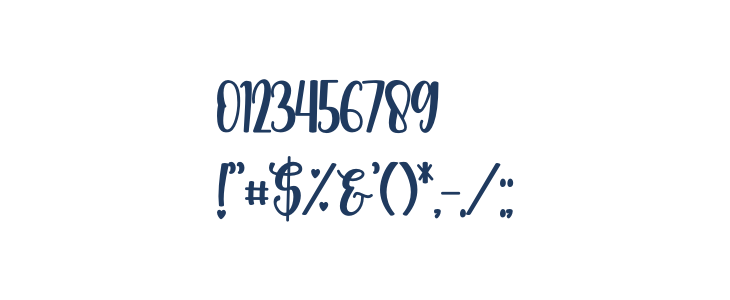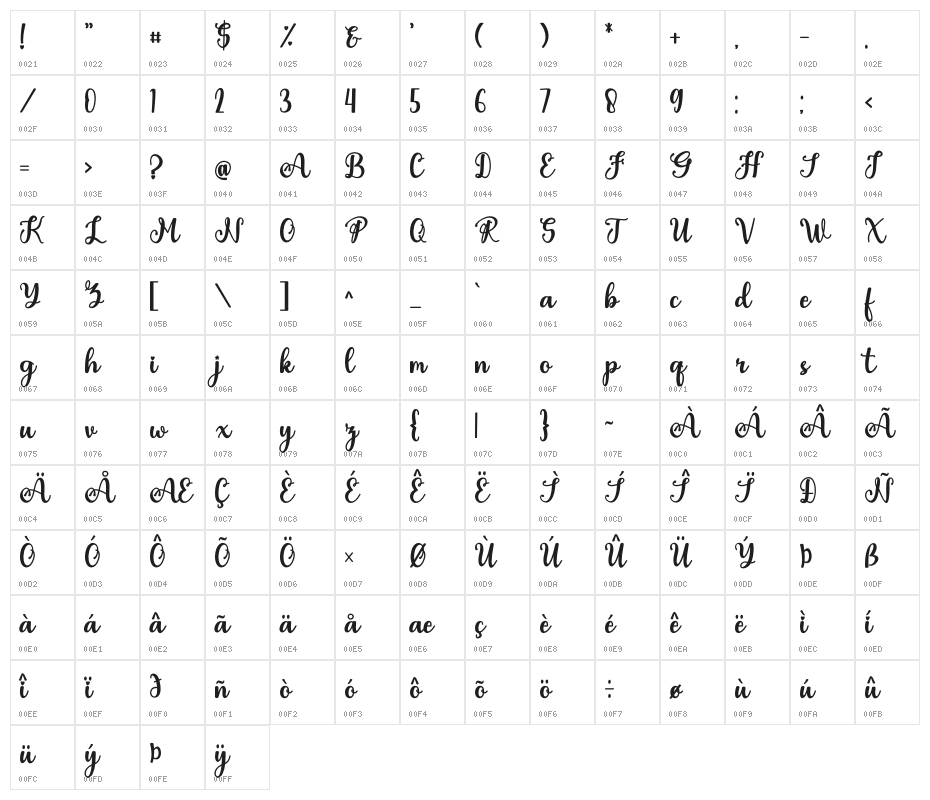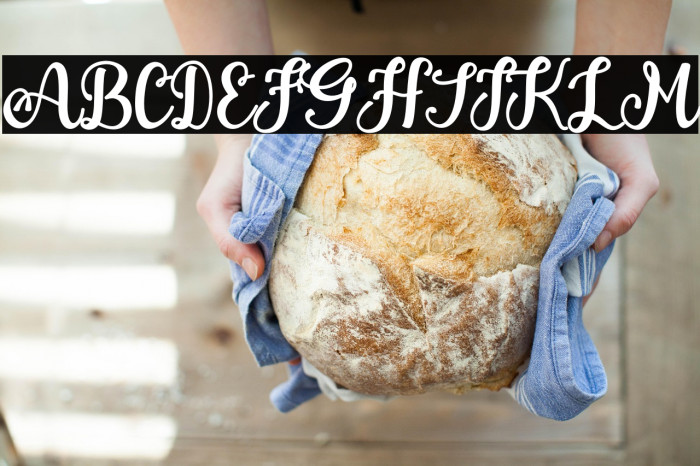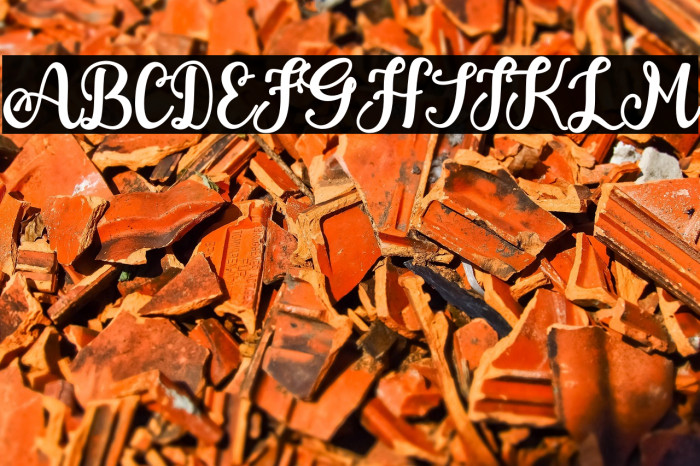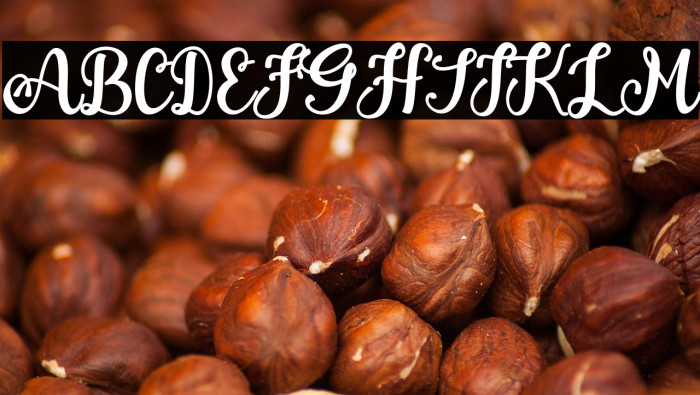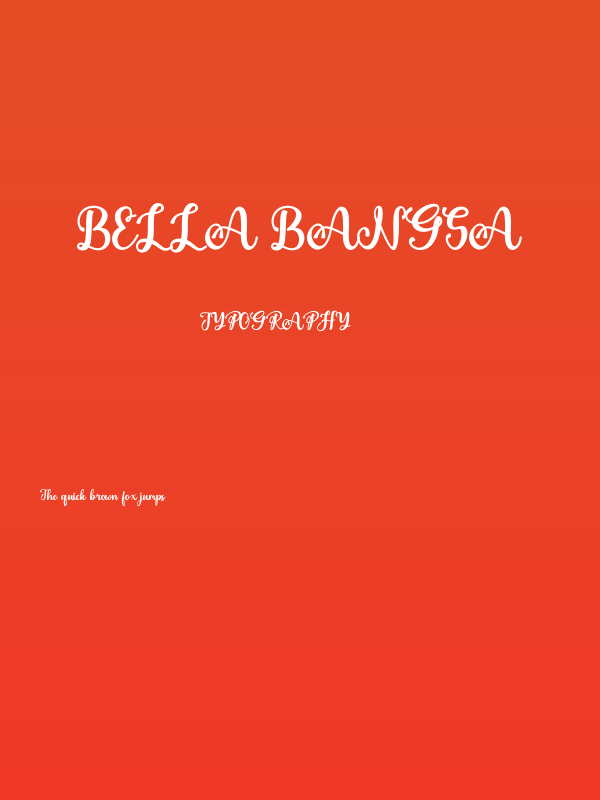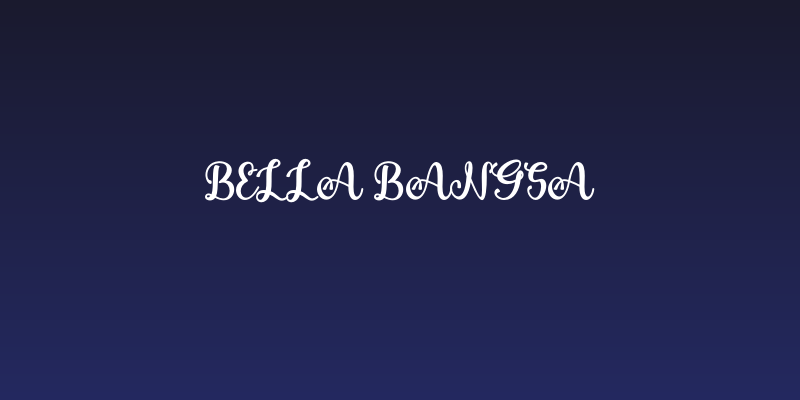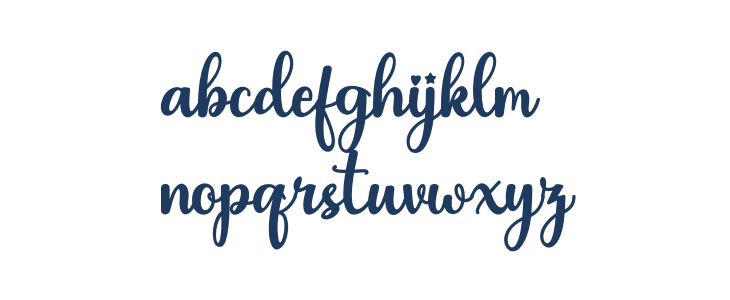
Bella Bangsa Font
Bella Bangsa Description
This font features a playful and elegant script style with a flowing, cursive design. The uppercase letters are characterized by their ornate loops and swirls, giving them a decorative appearance. The lowercase letters maintain a consistent flow, with smooth connections between characters, enhancing readability while retaining a stylish flair. The numerals are bold and clear, matching the overall aesthetic of the font. Special characters are creatively designed, incorporating the same whimsical elements found in the alphabet. This font is ideal for projects that require a touch of elegance and personality.
Use CaseLogos, Invitations, Decorative text
Proposed ProjectsIdeal for wedding invitations, greeting cards, branding, and logo design.